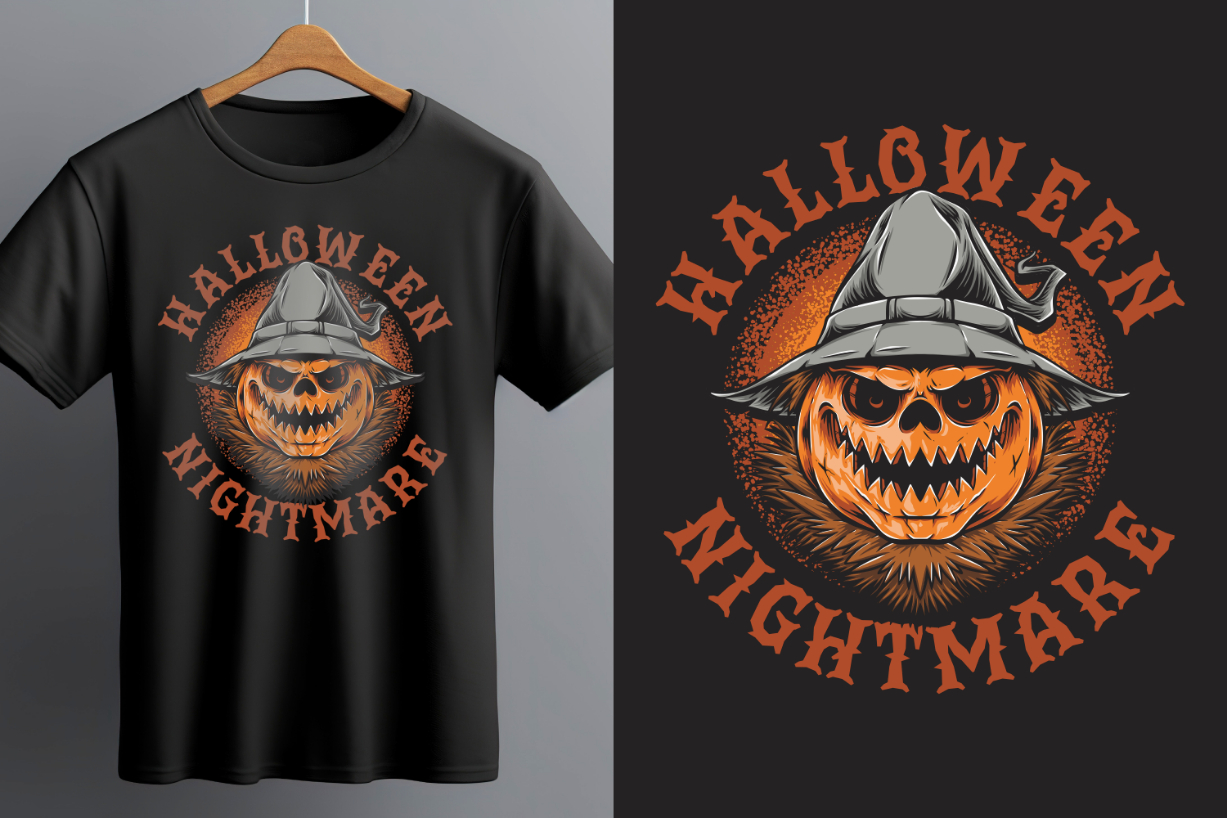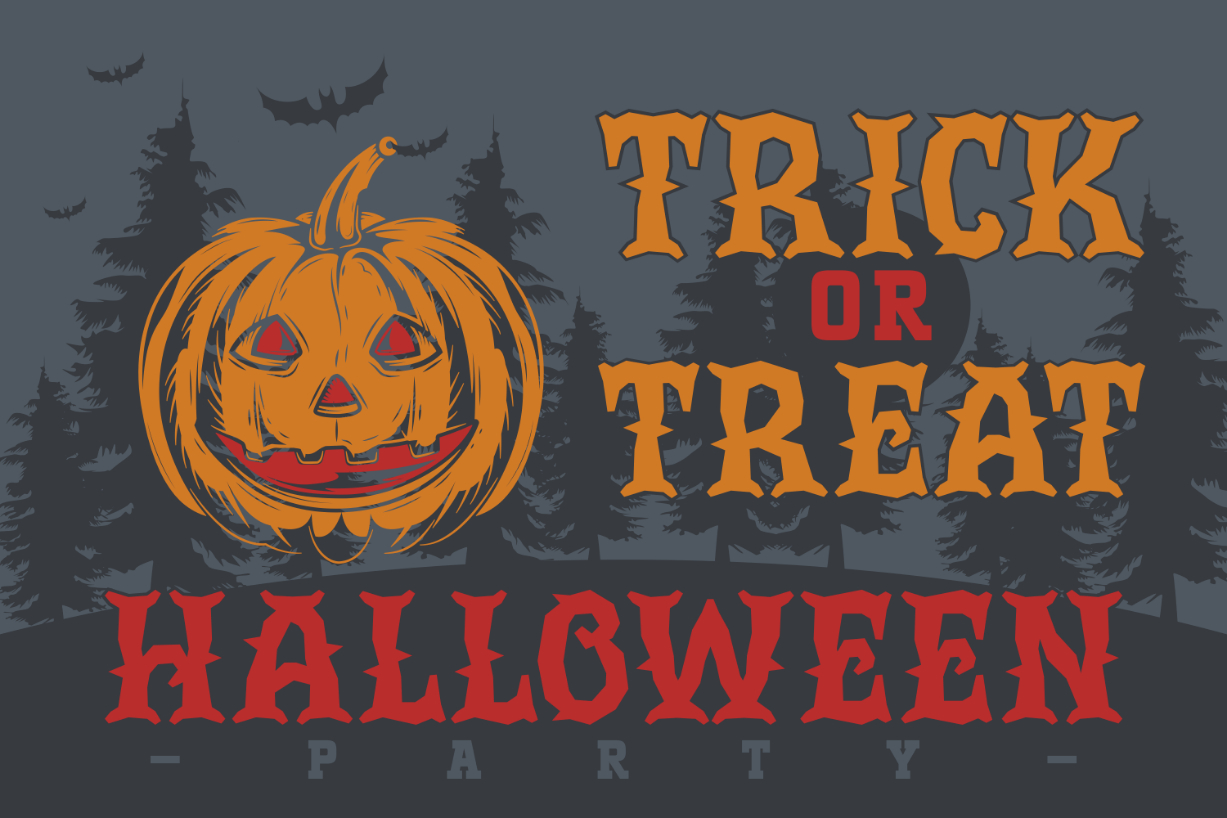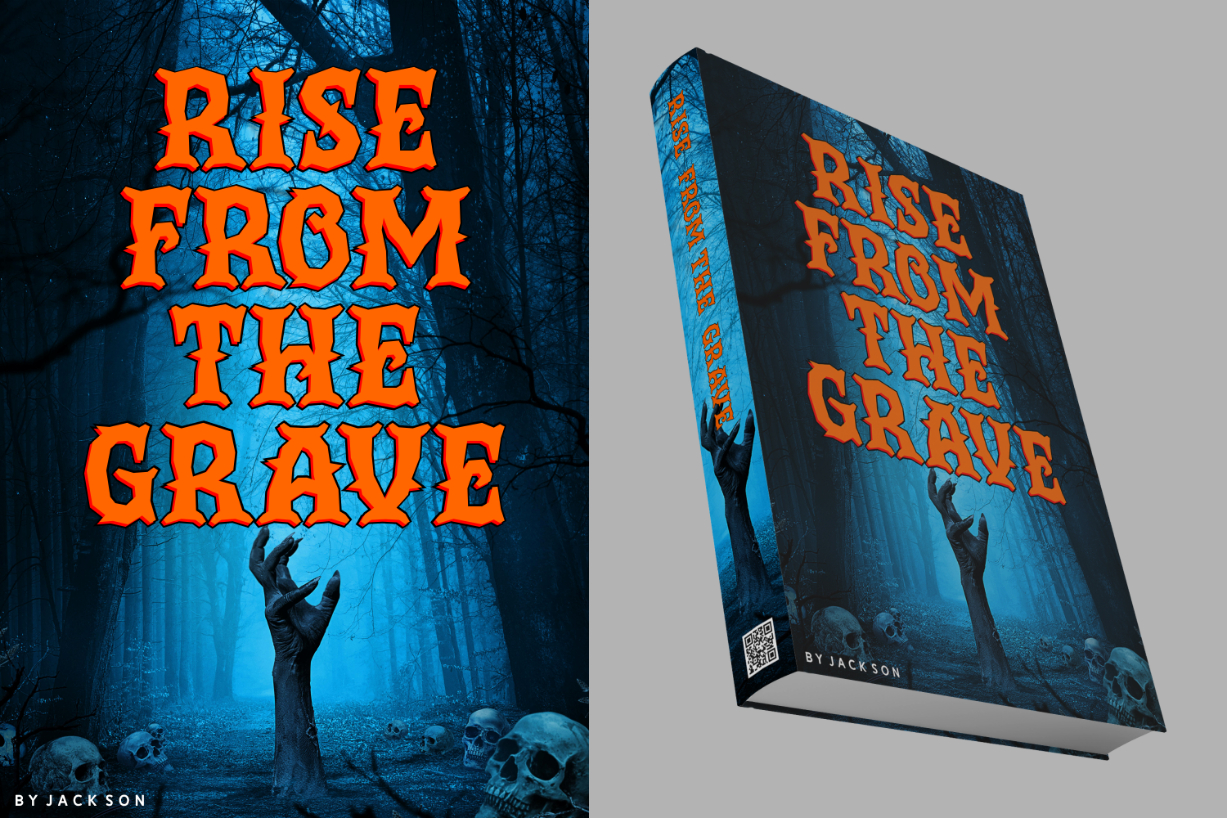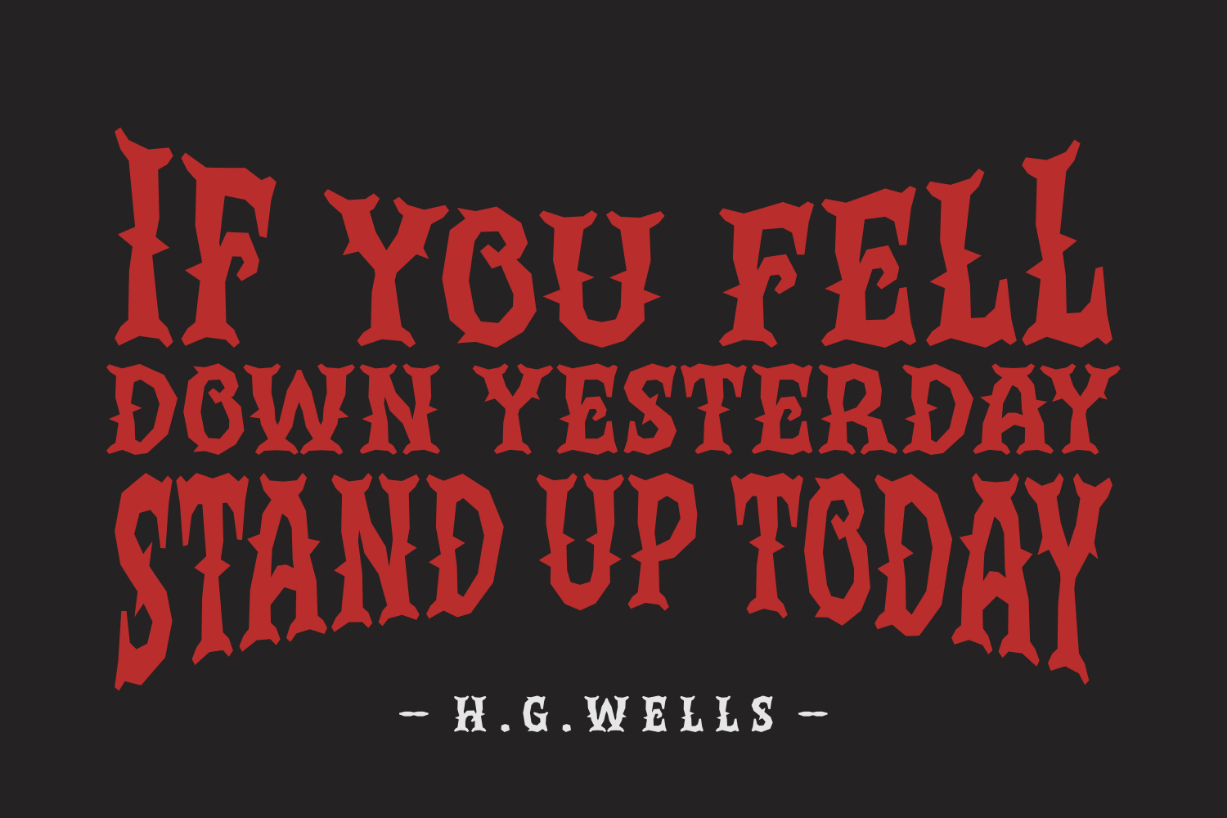
Dark Ghost Font
About Dark Ghost Font
Dark Ghost is a playful and spooky blackletter font. Have fun creating Halloween-themed typography with this eerie font that adds a scary look to any creative idea. It is perfect for designing mysterious posters, invitations, banners, signage, product packaging, and more.